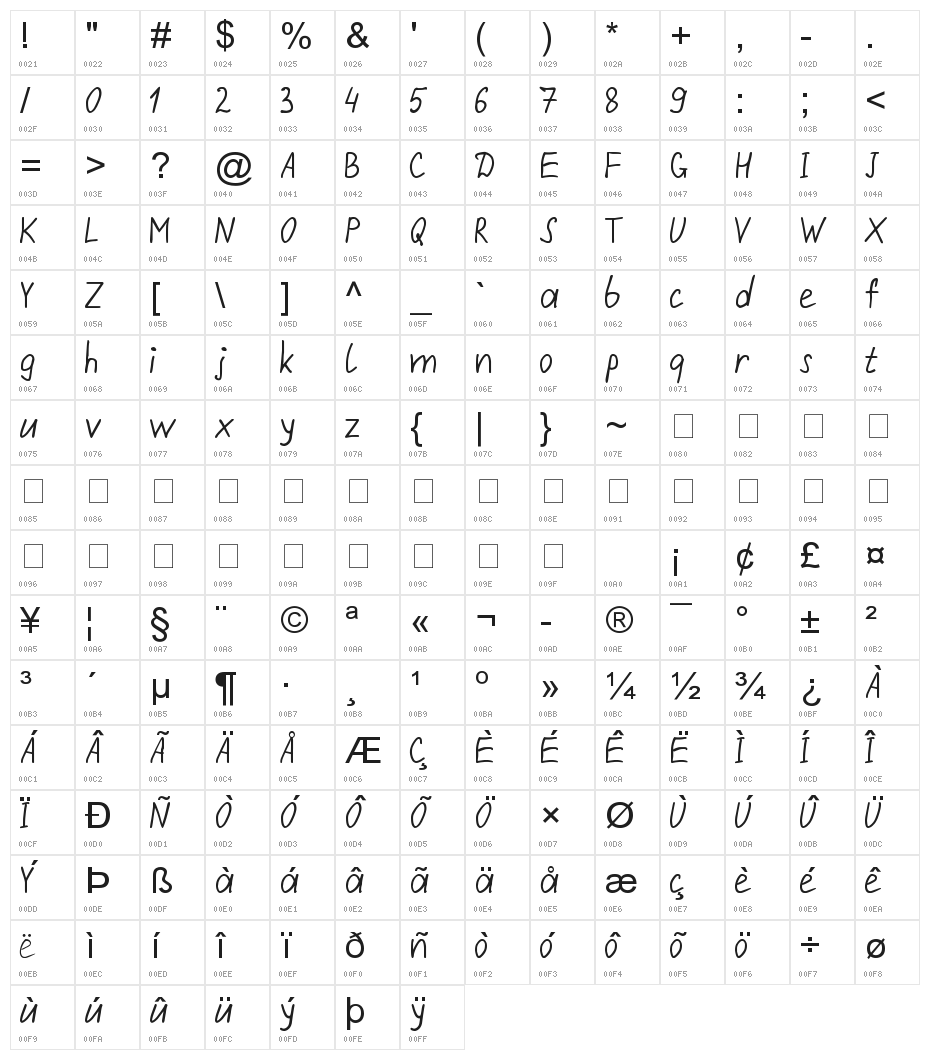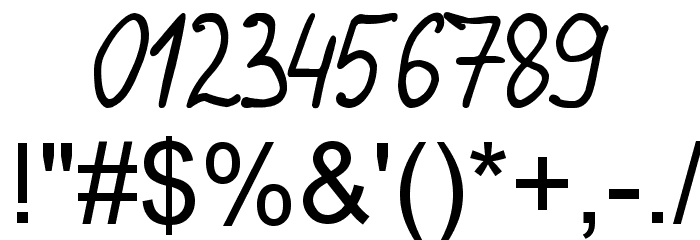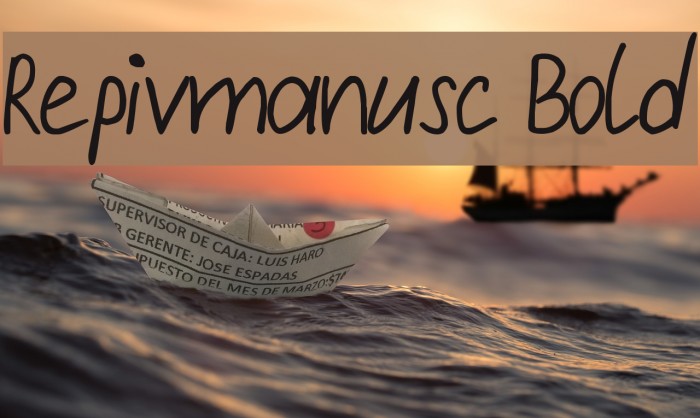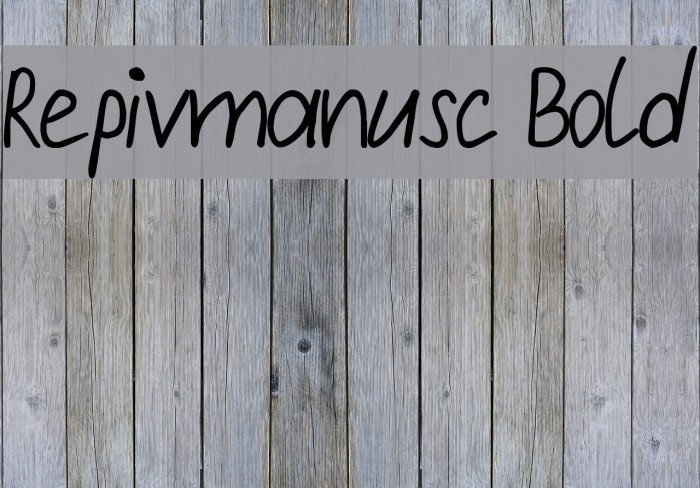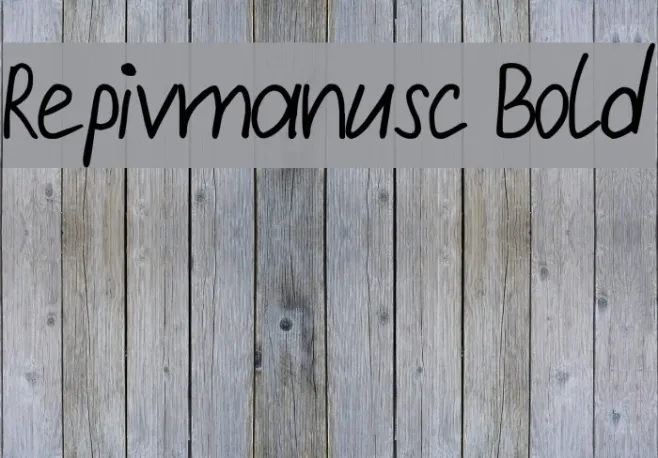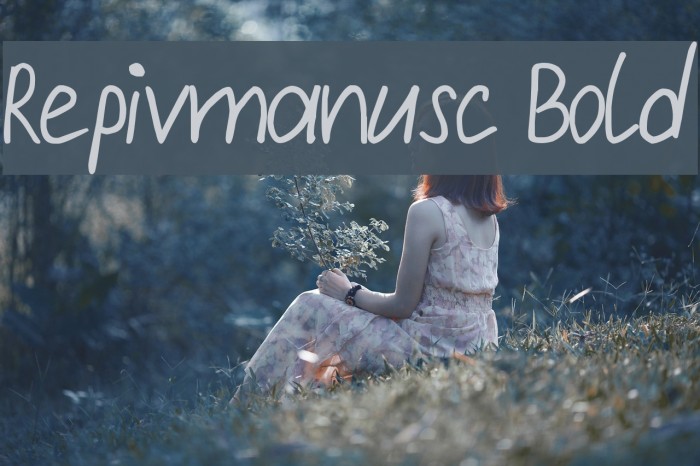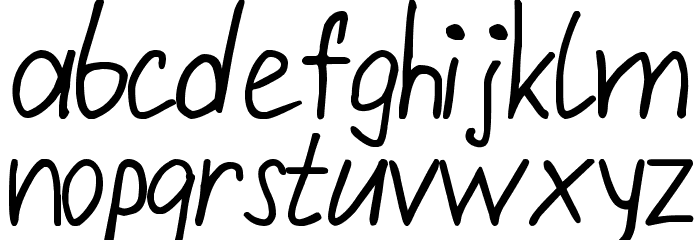
Repivmanusc Bold Font
Repivmanusc Bold Description
This font features a playful and casual handwritten style, characterized by its smooth curves and slightly irregular strokes. The letters are bold and have a consistent thickness, giving them a strong presence on the page. The uppercase letters are tall and slightly narrow, while the lowercase letters maintain a friendly and approachable appearance. The numbers and special characters follow the same style, ensuring a cohesive look across all text elements. This font is ideal for projects that require a personal touch or a sense of informality.
| Proposed Projects | Ideal for greeting cards, invitations, children's books, and casual branding projects. |